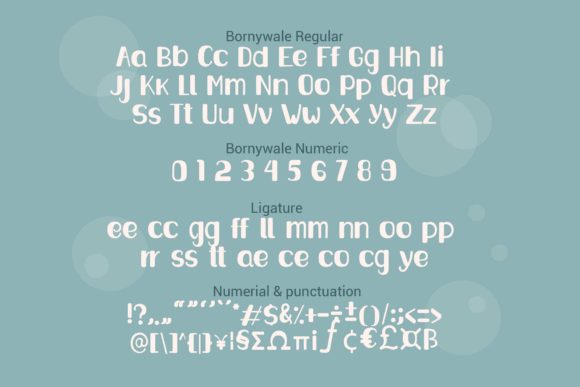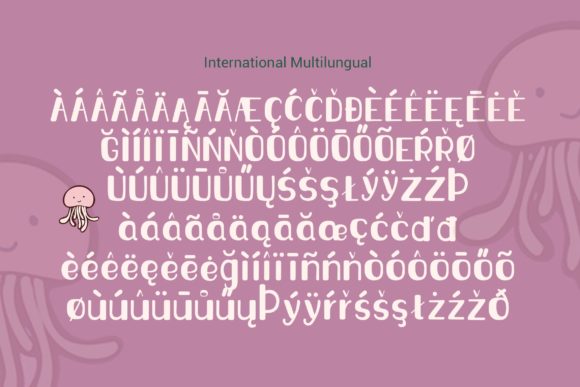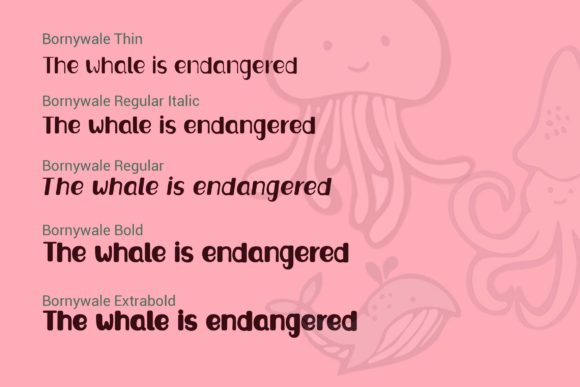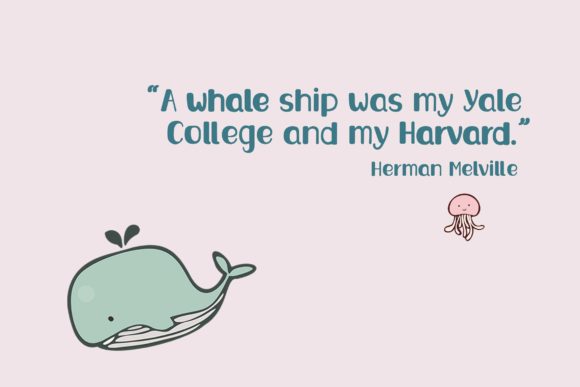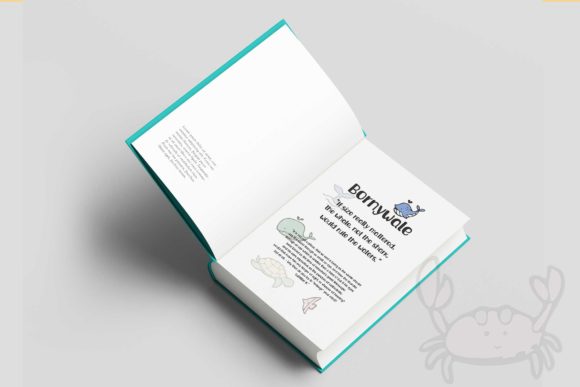
Discover the Perfect Font for Your Next Creative Project
Have you ever stared at a blank canvas, unsure of where to begin, and suddenly a spark of inspiration strikes? That’s exactly what happened to many designers when they first laid eyes on the Bornywale Font. This sleek and modern sans serif font is the perfect addition to any creative project, from logos to brochures, and everything in between.
With its clean lines and minimalistic design, the Bornywale Font is incredibly versatile and can be paired with a wide range of styles and themes. Whether you’re working on a high-end corporate project or a personal passion project, this font is sure to elevate your design and make it stand out. As a valuable tool for designers, the Bornywale Font is a must-have for anyone looking to take their creative ideas to the next level.
Bornywale Font Key Features
- Font Family: Bornywale is a sans-serif font family designed for digital use.
- Resolution: Optimized for high-resolution displays, Bornywale font is ideal for use in digital media, such as websites, mobile apps, and social media platforms.
- Unique Characteristics: Bornywale font features a clean, modern design with a unique geometric flair, making it stand out from other sans-serif fonts.
- Language Support: Bornywale font supports a wide range of languages, including Latin, Cyrillic, Greek, and many others, making it a versatile choice for global design projects.
Bornywale Font Review
I’ve had the chance to work with the Bornywale Font, and I must say, it’s a unique and interesting addition to any design project. ✨ One of the things that stands out is its versatility – it can be used for both modern and traditional designs, making it a great option for a wide range of projects.
Another aspect that I appreciate is its high legibility, which makes it perfect for body text and headings. ✨ The font’s clear and crisp lines ensure that your content is easily readable, even at smaller font sizes.
While Bornywale Font has its strengths, there are some limitations to consider:
- ⚠️ Limited stylistic variations: The font lacks a wide range of weights, styles, and widths, which can limit its use in more complex designs.
- ⚠️ May not be suitable for small text: Due to its clear and crisp lines, the font can appear a bit too stark when used for very small text sizes.
Overall, I think Bornywale Font is a solid choice for designers who want a clean and versatile font for their projects. However, it may not be the best option for those who require a wide range of stylistic variations or plan to use the font for very small text sizes.
Getting the Most Out of Bornywale Font
For the best results, use Bornywale Font in bold or italic styles to add emphasis to your text.
Experiment with different font sizes and line spacing to achieve the desired visual effect.
Bornywale Font is ideal for use in:
1. Creative projects where a unique and elegant font is required.
2. Branding materials such as logos
Alternatives to Bornywale Font for Designers
Bebas Neue Font
Bebas Neue Font is a modern sans-serif font that is perfect for creating a clean and minimalist design. It is ideal for use in logos, titles, and headings where a strong, bold font is needed. Bebas Neue Font has a more geometric and uniform look compared to Bornywale Font, which makes it more versatile and easier to read.
Playfair Display Font is an elegant and luxurious serif font that is perfect for creating a sophisticated and high-end design. It is ideal for use in luxury brands, magazines, and books where a classic and refined font is needed. Playfair Display Font has a more ornate and intricate look compared to Bornywale Font, which makes it more suitable for formal and traditional designs.
Does Bornywale Font support multilingual text?
Yes, Bornywale Font supports multilingual text, including Latin, Cyrillic, and Greek scripts. However, its support for non-Latin scripts may vary depending on the specific language and character set. Consult the font’s documentation or contact the foundry for more information on multilingual support.